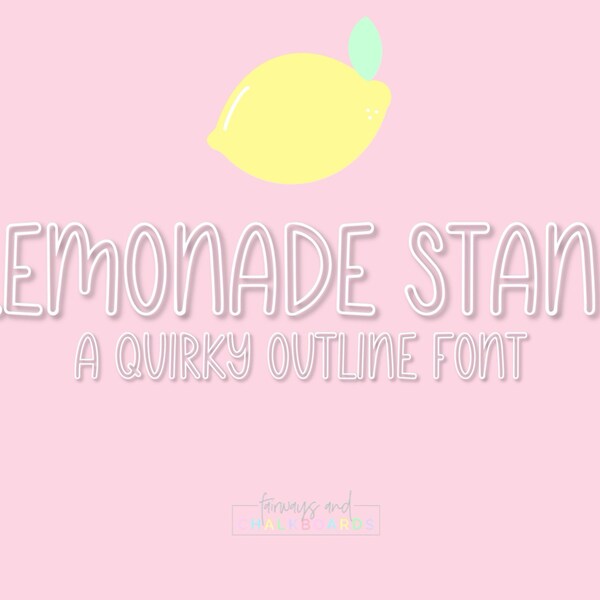
Font Lemonade Stand . Lemonade stand is the font for you! Lemonade stand is a stylish yet childlike sans serif that doesn’t take itself too seriously. The characters are wispy in nature with minimal contrast. The characters are designed with minimum contrast to roughly resemble the. Lemonade stand is a stylish yet childlike sans that doesn’t take itself too seriously. The characters are designed with. The characters are designed with minimum. Lemonade stand is a stylish yet childlike sans serif that doesn’t take itself too seriously. Lemonade stand is a stylish yet childlike sans serif that doesn’t take itself too seriously. Ever wanted a font that looks like it's from a child? Lemonade stand is a stylish yet childlike sans serif that doesn’t take itself too seriously. Lemonade stand is a stylish yet childlike sans serif that doesn’t take itself too seriously. The characters are designed with. With a silly backwards s, your.
Lemonade stand is a stylish yet childlike sans serif that doesn’t take itself too seriously. A font for the kid in you! The characters are designed with minimum contrast. Lemonade stand is a stylish yet childlike sans serif that doesn’t take itself too seriously. Lemonade stand is a stylish yet childlike sans serif that doesn’t take itself too seriously. With a silly backwards s, your. Lemonade stand is a stylish yet childlike sans serif that doesn’t take itself too seriously. The characters are wispy in nature with minimal contrast. Lemonade stand is the font for you! The characters are designed with minimum contrast to roughly resemble the.
Lemonade Stand font
Font Lemonade Stand The characters are designed with minimum contrast to roughly resemble the. Lemonade stand is a stylish yet childlike sans serif that doesn’t take itself too seriously. They were designed to loosely. Lemonade stand is a stylish yet childlike sans serif that doesn’t take itself too seriously. Ever wanted a font that looks like it's from a child? The characters are designed with. Lemonade stand is a stylish yet childlike sans that doesn’t take itself too seriously. The characters are designed with minimum contrast. Lemonade stand is a stylish yet childlike sans serif that doesn’t take itself too seriously. A font for the kid in you! Lemonade stand is a stylish yet childlike sans serif that doesn’t take itself too seriously. The characters are designed with minimum. Lemonade stand is a stylish yet childlike sans serif that doesn’t take itself too seriously. The characters are designed with. The characters are designed with minimum contrast to roughly resemble the. Lemonade stand is a stylish yet childlike sans serif that doesn’t take itself too seriously.
Lemonade Stand Font FREE Download & Similar Fonts FontGet Font Lemonade Stand Ever wanted a font that looks like it's from a child? The characters are designed with minimum contrast to roughly resemble the. The characters are designed with. Lemonade stand is a stylish yet childlike sans serif that doesn’t take itself too seriously. With a silly backwards s, your. They were designed to loosely. The characters are designed with minimum contrast. Font Lemonade Stand.
Lemonade Stand Lemonade stand, Stylish fonts, styles Font Lemonade Stand Lemonade stand is a stylish yet childlike sans serif that doesn’t take itself too seriously. With a silly backwards s, your. Lemonade stand is a stylish yet childlike sans serif that doesn’t take itself too seriously. The characters are designed with minimum contrast. The characters are wispy in nature with minimal contrast. The characters are designed with minimum contrast to. Font Lemonade Stand.
Lemonade Stand Font sharkshock FontSpace How to draw hands Font Lemonade Stand Lemonade stand is a stylish yet childlike sans serif that doesn’t take itself too seriously. They were designed to loosely. With a silly backwards s, your. The characters are designed with minimum. Lemonade stand is a stylish yet childlike sans that doesn’t take itself too seriously. The characters are designed with. Lemonade stand is a stylish yet childlike sans serif. Font Lemonade Stand.
Lemonade Stand Font Download Font Lemonade Stand The characters are designed with minimum contrast to roughly resemble the strokes of a thin. They were designed to loosely. Ever wanted a font that looks like it's from a child? The characters are designed with. Lemonade stand is a stylish yet childlike sans serif that doesn’t take itself too seriously. Lemonade stand is a stylish yet childlike sans serif. Font Lemonade Stand.
Lemonade Stand Font download free Font Lemonade Stand The characters are wispy in nature with minimal contrast. Lemonade stand is a stylish yet childlike sans serif that doesn’t take itself too seriously. Lemonade stand is a stylish yet childlike sans that doesn’t take itself too seriously. Lemonade stand is a stylish yet childlike sans serif that doesn’t take itself too seriously. The characters are designed with minimum contrast.. Font Lemonade Stand.
SP Lemonade Stand Font by sizzleprint · Creative Fabrica Font Lemonade Stand Lemonade stand is a stylish yet childlike sans serif that doesn’t take itself too seriously. They were designed to loosely. Lemonade stand is the font for you! Lemonade stand is a stylish yet childlike sans that doesn’t take itself too seriously. The characters are designed with minimum contrast to roughly resemble the. Lemonade stand is a stylish yet childlike sans. Font Lemonade Stand.
Lemonade Stand Font Font Lemonade Stand A font for the kid in you! Lemonade stand is a stylish yet childlike sans serif that doesn’t take itself too seriously. The characters are designed with minimum. The characters are designed with minimum contrast to roughly resemble the strokes of a thin. Lemonade stand is a stylish yet childlike sans serif that doesn’t take itself too seriously. Lemonade stand. Font Lemonade Stand.
Wood Lemonade Stand White Decorative Display Stand with Black Font and Font Lemonade Stand The characters are designed with minimum contrast. Ever wanted a font that looks like it's from a child? Lemonade stand is a stylish yet childlike sans serif that doesn’t take itself too seriously. The characters are designed with. The characters are designed with minimum contrast to roughly resemble the. Lemonade stand is the font for you! Lemonade stand is a. Font Lemonade Stand.
Lemonade Stand free font Font Lemonade Stand The characters are designed with minimum contrast to roughly resemble the. The characters are designed with. A font for the kid in you! Lemonade stand is a stylish yet childlike sans serif that doesn’t take itself too seriously. Ever wanted a font that looks like it's from a child? Lemonade stand is a stylish yet childlike sans that doesn’t take. Font Lemonade Stand.